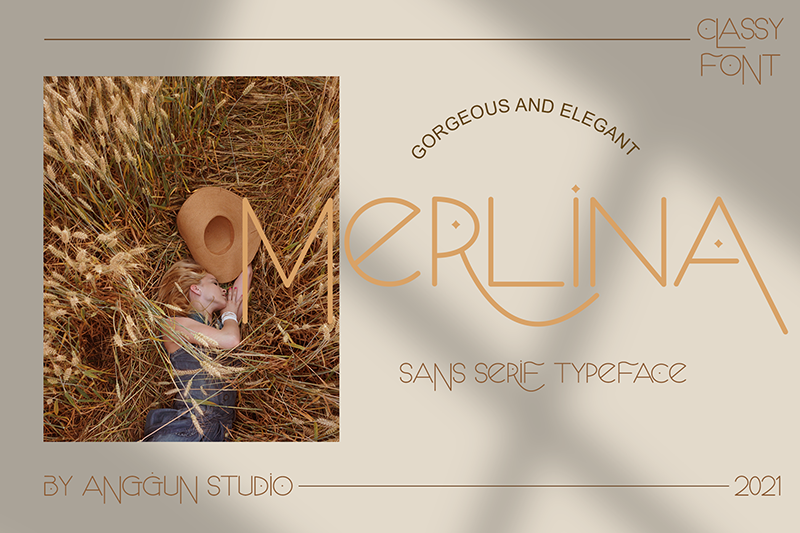
Preview and download Merlina Font. Created by Anggun Bangkit Hutami in Basic Sans serif styles with Free for personal use license.
Merlina is an elegant, thin lettered sans serif font. This font is PUA encoded which means you can access all of the glyphs and swashes with ease! Add it confidently to your favorite creations and let yourself be amazed by the outcome generated. if You Want to Use for Commercial Project, Please Purchase it on the following link https://www.creativefabrica.com/product/merlina/ref/934867/ For other question, contact us at ANDANG PRASETYO prasetyo.andang1010@gmail.com |